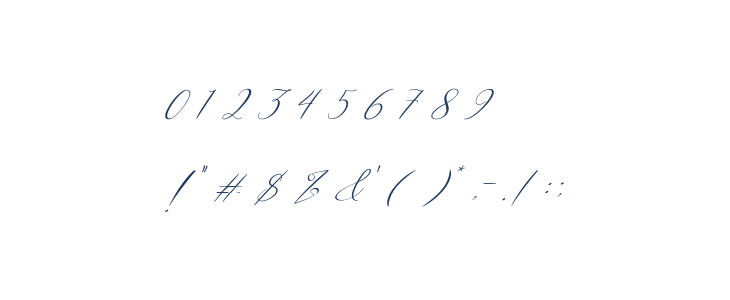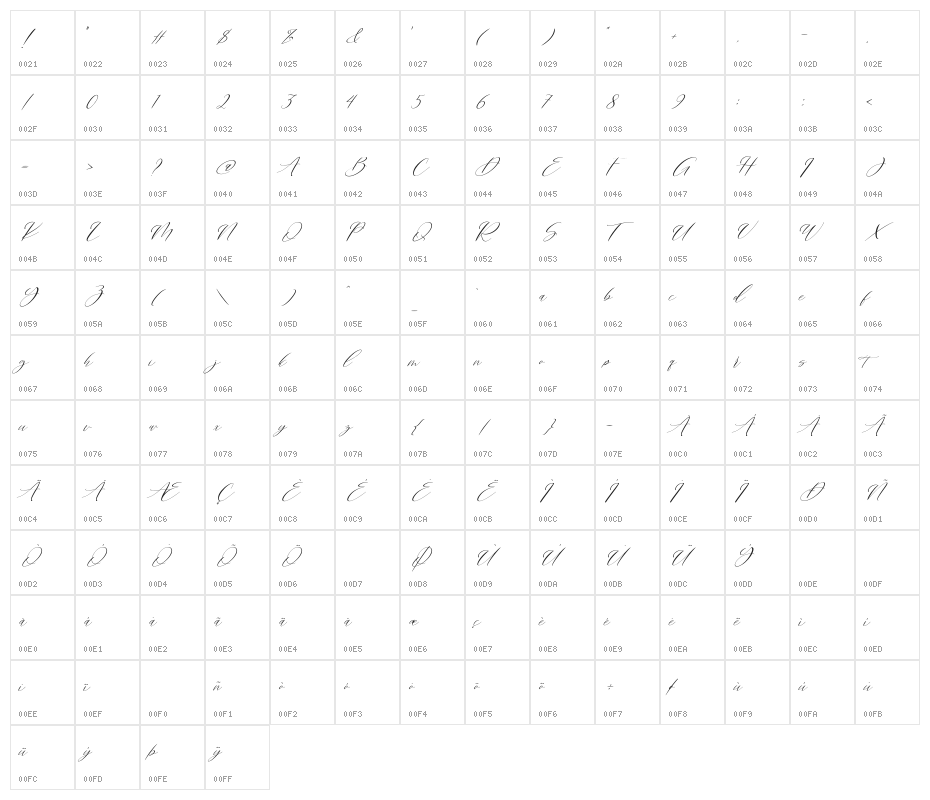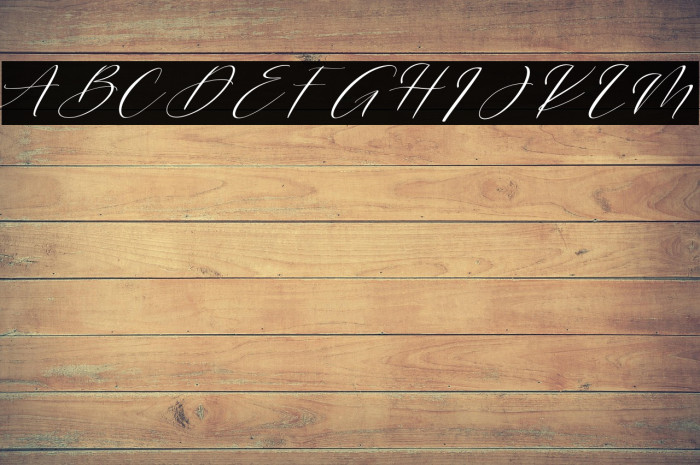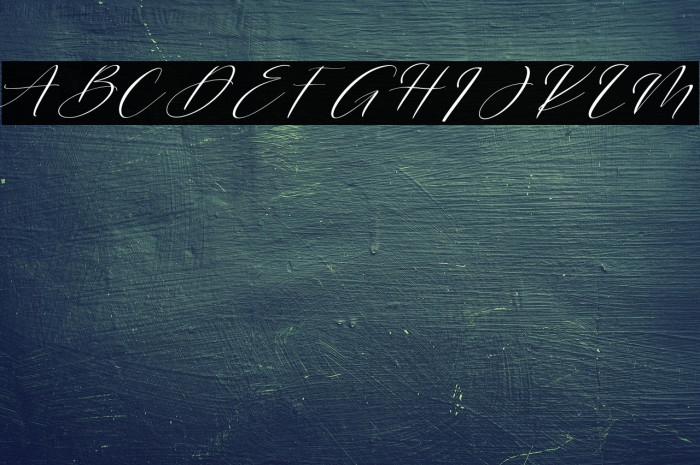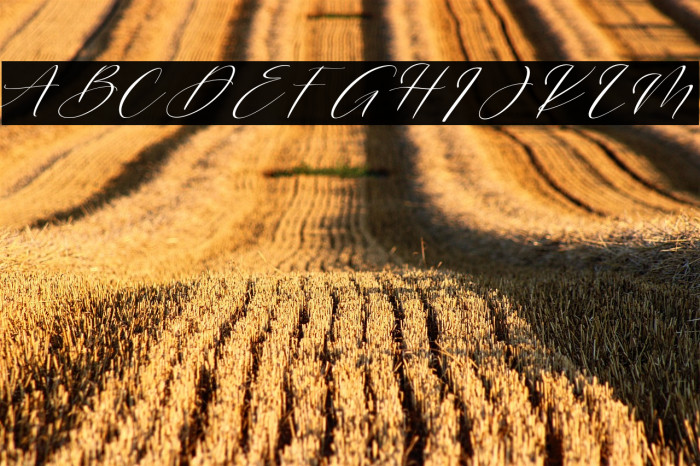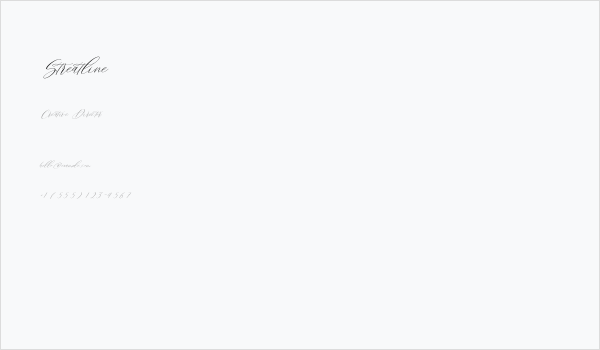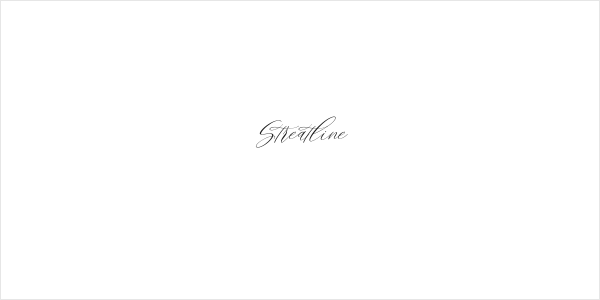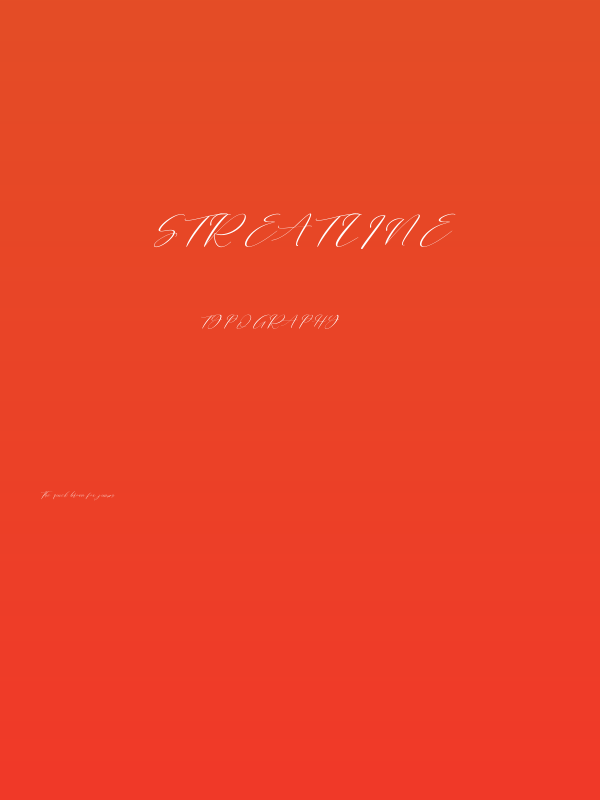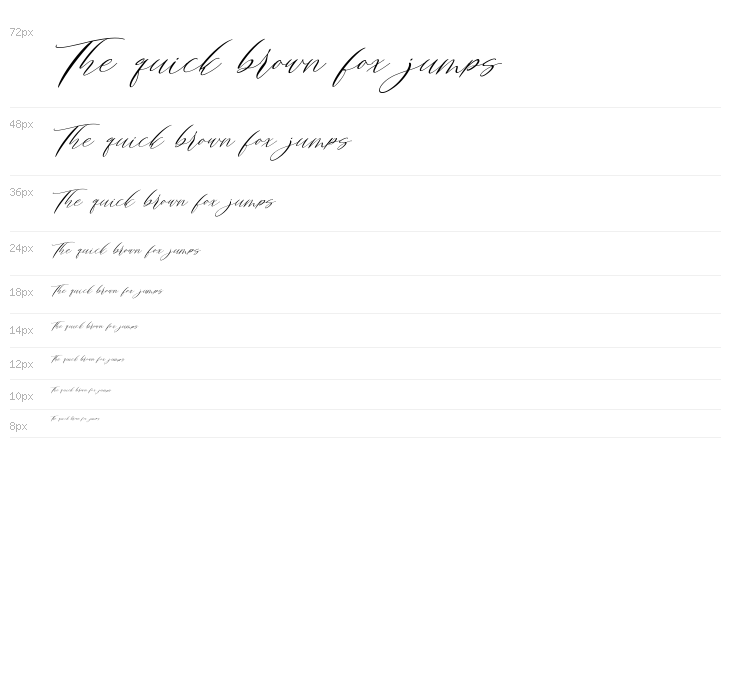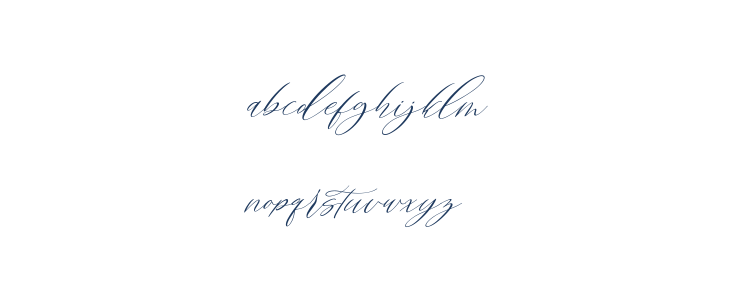
Streatline Font
Streatline Description
This elegant script font features fluid, cursive strokes that give it a sophisticated and graceful appearance. The letters are connected with smooth transitions, creating a harmonious flow across words. The uppercase letters are slightly more ornate, with sweeping lines and flourishes that add a touch of luxury. The lowercase letters maintain a consistent style, complementing the uppercase with their own subtle curves. Numbers and special characters are designed to match the overall aesthetic, ensuring a cohesive look. This font exudes a sense of refinement and is perfect for projects that require a touch of elegance.
| Proposed Projects | Ideal for wedding invitations, luxury branding, elegant stationery, and high-end packaging. |